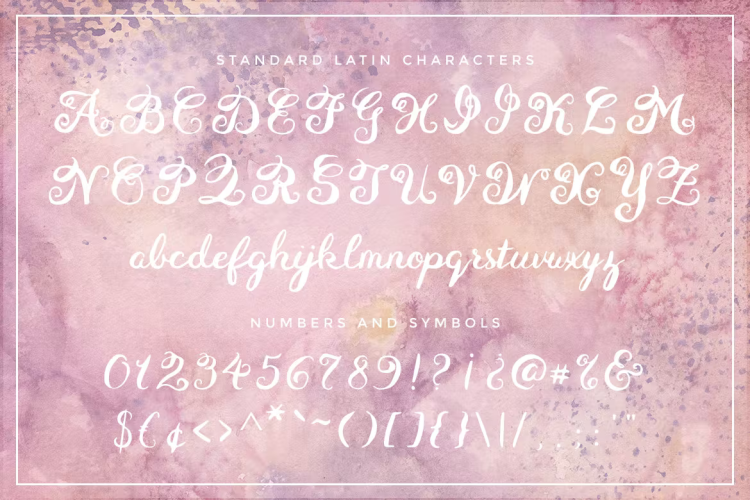
Eiffell Brush Script Font
Eiffell is a gorgeous, hand brushed, and unique typeface with French charm. With stunningly decorative capitals, it’s perfect for logos, posters, typographic designs, and much more.
A flexible look helps Eiffell feel right at home in soft, feminine projects, or when used for old-world, hand scripted designs.
Where Eiffell Brush Script Font works best
A short phrase in Eiffell Brush Script Font carries warmth that a typeset sans cannot fake; keep the rest of the card plain.
Chalkboard-style headings in Eiffell Brush Script Font make a menu feel hand-made. Keep the dish descriptions in a simple face so prices stay readable.
One line of Eiffell Brush Script Font over a photo is enough; the script carries the tone and the caption does the work.
What kind of work does Eiffell Brush Script Font suit?
It sits in the Script And Handwritten group and reads as branding, brush, decorative, script. That makes it a candidate wherever those qualities help: headings, packaging, social graphics and brand work. Set it at the size you plan to use before deciding.